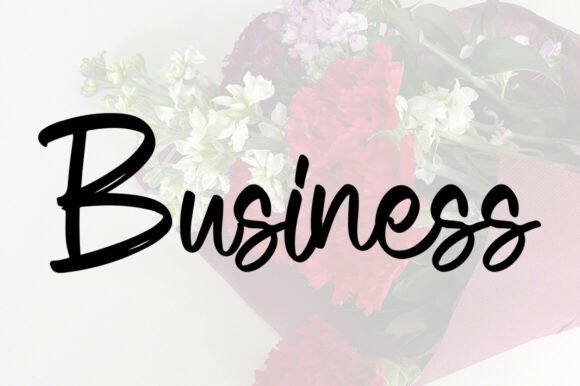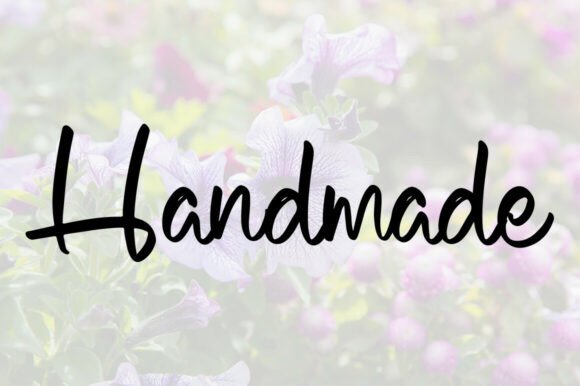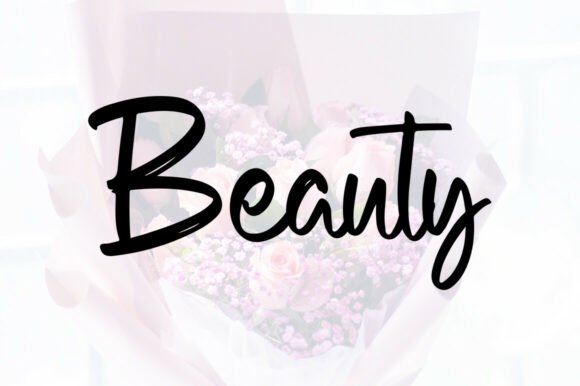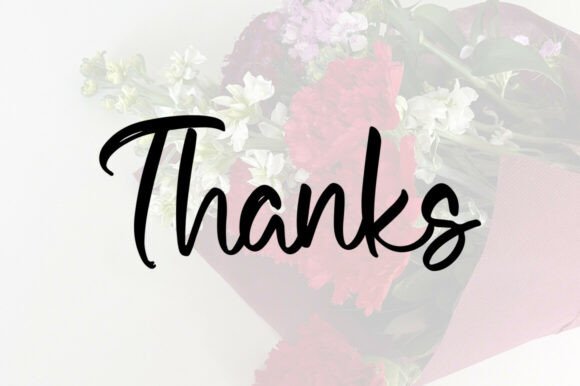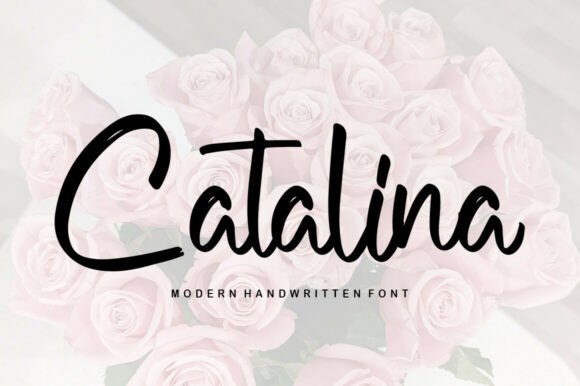
The Quest for the Perfect Font: Discovering Catalina
I still remember the time I was working on a wedding invitation project, and my client asked for a font that was both elegant and playful. I scoured the internet, tried out countless fonts, but nothing seemed quite right. That was until I stumbled upon Catalina, a beautiful script font that instantly captured the essence of what I was looking for. In this article, I’ll share my experience with Catalina, and explore its features, uses, and alternatives.
A First Impression: What Makes Catalina Special
Catalina is described as an elegant and modern script font, perfect for adding a touch of fun to any design. And I couldn’t agree more! Here’s what I love about Catalina:
- ✨ Elegant and refined, yet playful and whimsical
- 💕 Beautifully crafted swashes and flourishes
- 🎉 Supports OpenType features, glyphs, and stylistic alternates
While Catalina is an amazing font, it’s not without its quirks. Here are a few things to keep in mind:
Exploring Alternatives: Similar Fonts to Catalina
The Story Behind Catalina: Designer Inspiration
Catalina was designed with the intention of creating a beautiful, modern script font that captures the essence of playfulness and elegance. While the actual design process is shrouded in mystery, it’s clear that the designer had a deep understanding of typography and a passion for creating something special.
| What is Catalina best used for? | Catalina is ideal for designs that require a touch of elegance and playfulness, such as wedding invitations, cards, and social media graphics. |
| Does Catalina support OpenType features? | Yes, Catalina supports OpenType features, including swashes, glyphs, and stylistic alternates. |
In conclusion, Catalina is an exceptional script font that can add a touch of elegance and playfulness to any design. With its beautiful swashes, refined lines, and support for OpenType features, it’s an excellent choice for designers, crafters, and creative hobbyists. Whether you’re working on a wedding invitation, social media graphic, or any other project, Catalina is definitely worth considering.